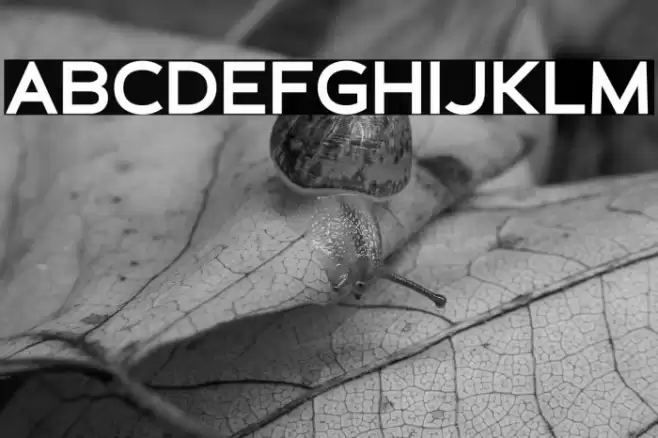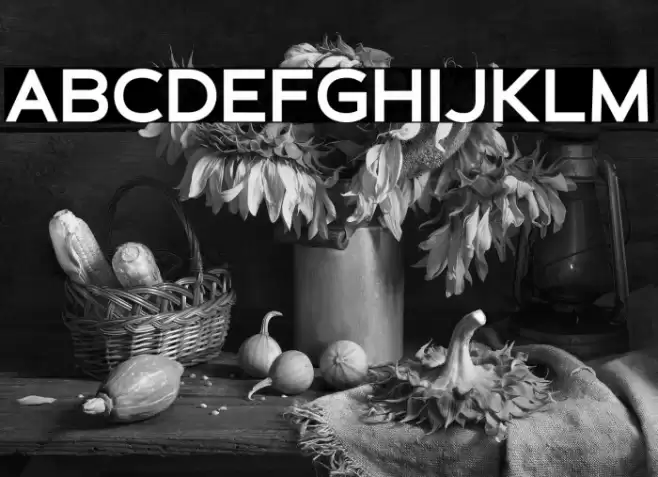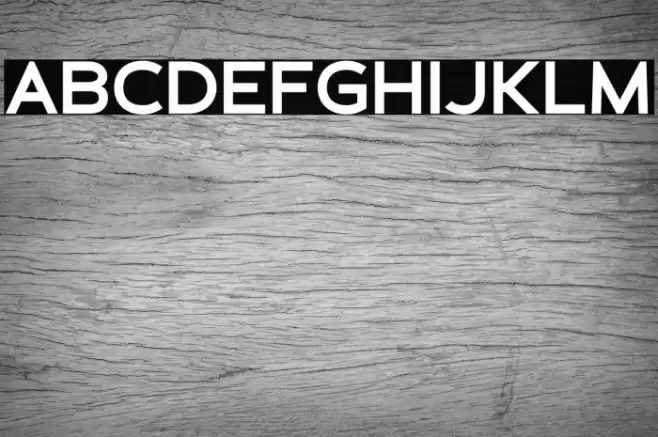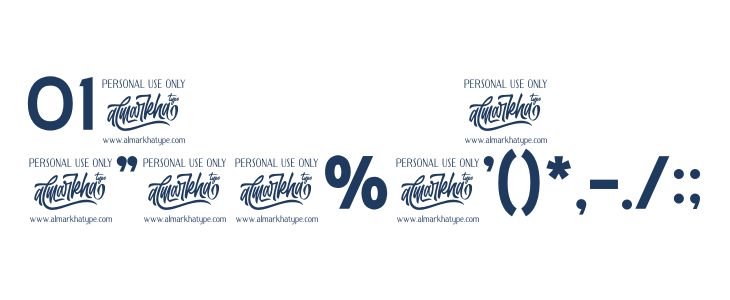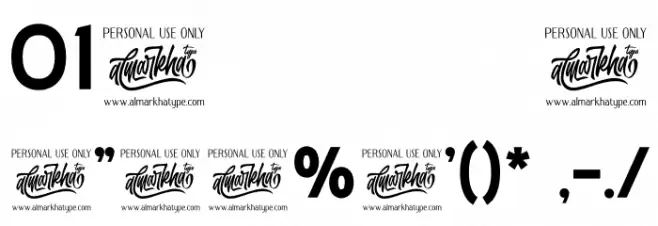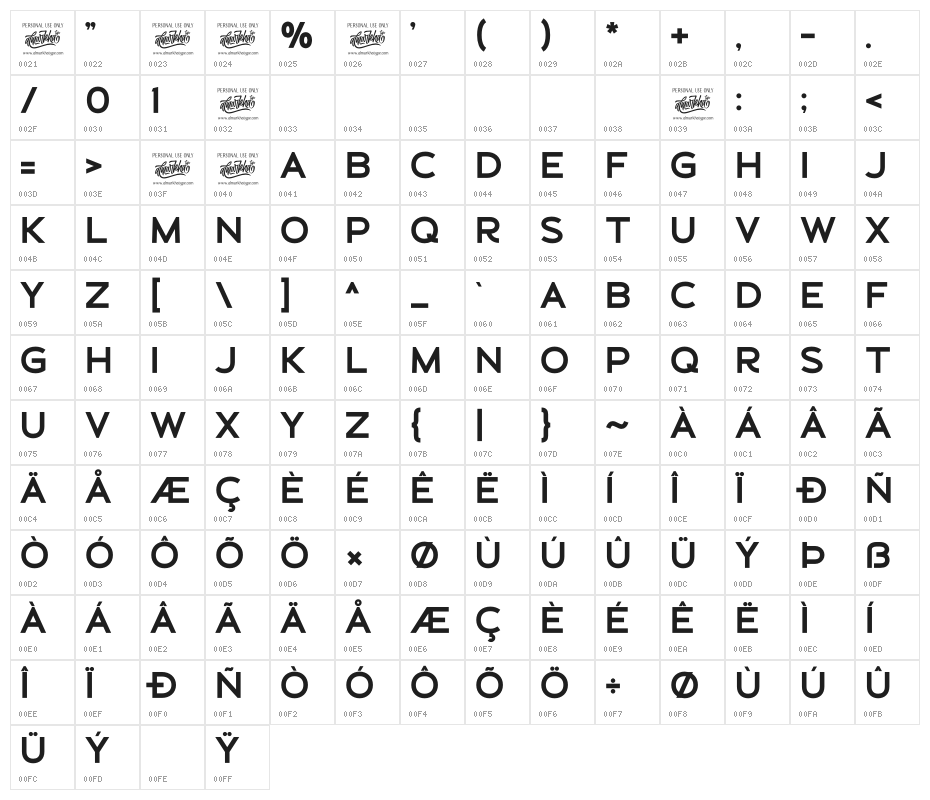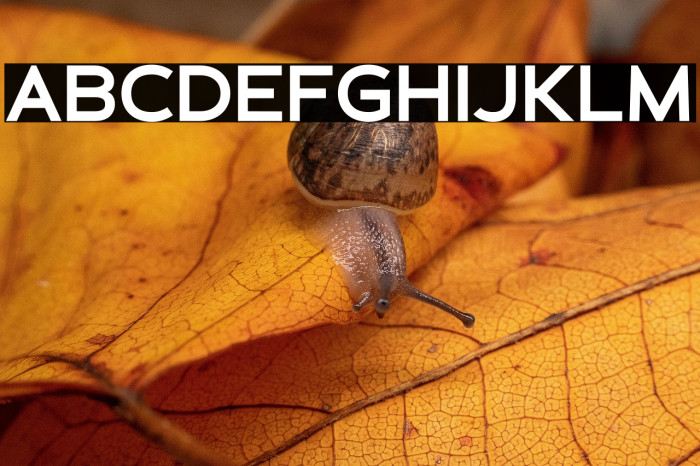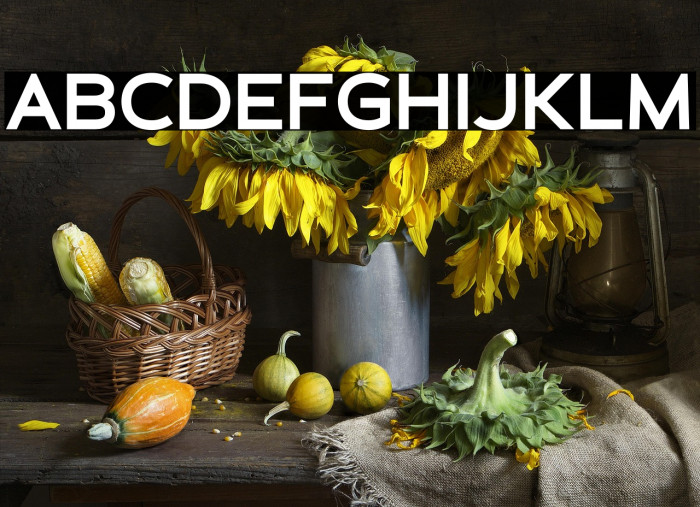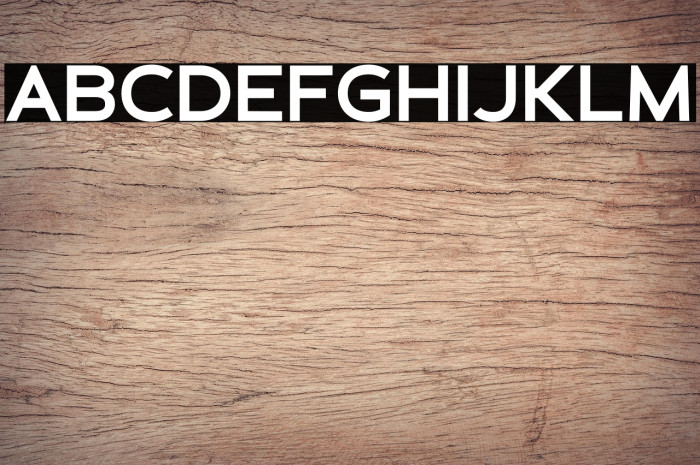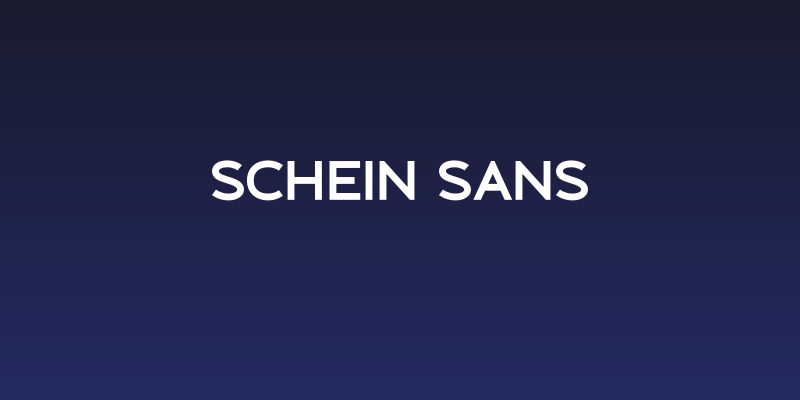
Schein Sans Font
Schein Sans Description
This font is a bold and modern sans-serif typeface characterized by its clean lines and geometric shapes. The uppercase letters are uniform in height, creating a strong and cohesive appearance. The lowercase letters maintain a similar width, ensuring readability and balance. The numerals are clear and distinct, matching the overall style of the alphabet. Special characters are designed with the same attention to detail, providing a complete and versatile set. The font's simplicity and boldness make it suitable for a variety of design applications, from digital to print.
A bold, modern sans-serif font with clean lines and geometric shapes from Uncategorized fonts.
- Font: Schein Sans
- Proposed Projects: Ideal for branding, advertising, headlines, and digital interfaces.
- Use Case: Headlines, Logos, Branding